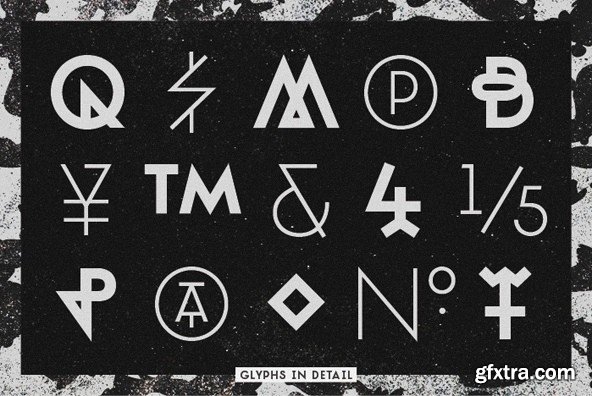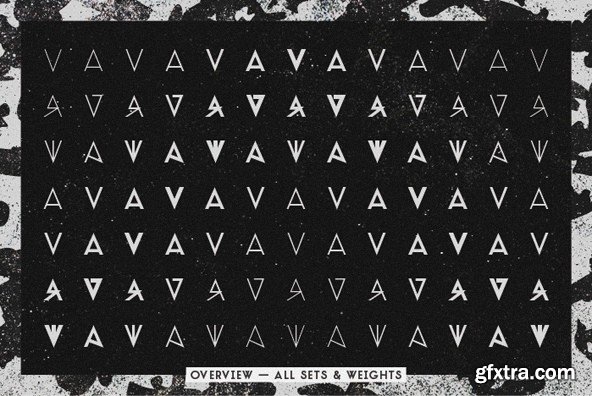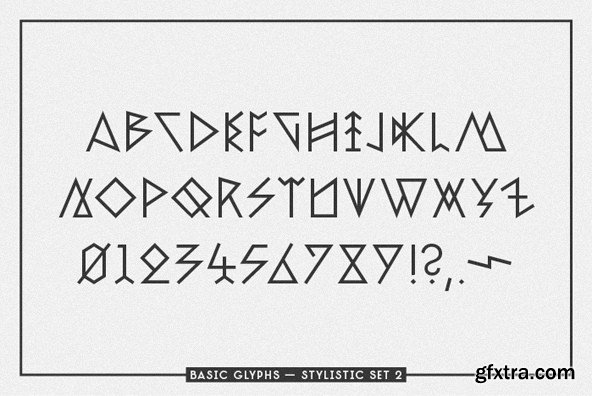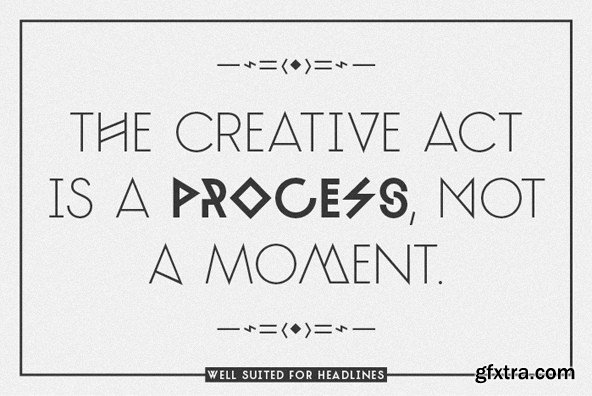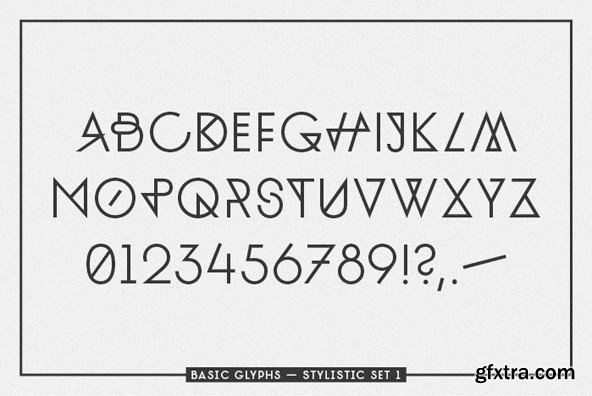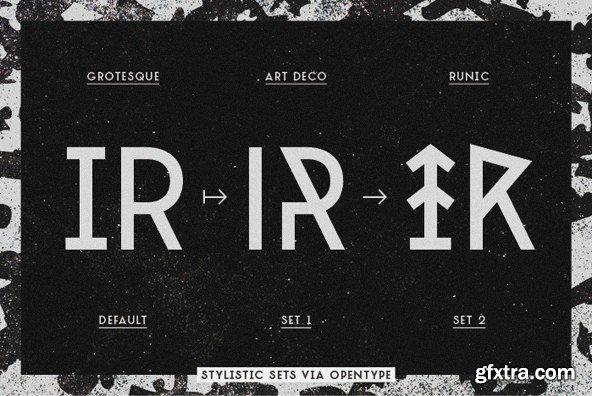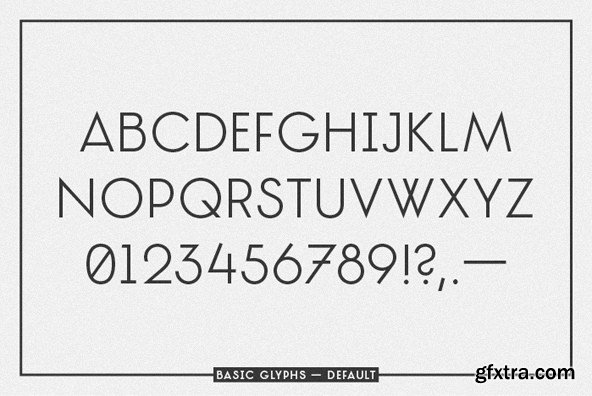
TJ Evolette A Full Family
TJ Evolette A is unique, customizable, experimental, fashionable and clean. The geometric constructed uppercase grotesque display font family of 21 styles, features seven weights, one basic glyph set, two integrated extravagant stylistic sets for the whole alphabet and some astonishing special characters as well. TJ Evolette A was designed in 2011 by Timo Titzmann and Jakob Runge. In 2014 they revisited the typeface with new characters, border language support, runic figures, improved kerning and a better weight gradation with heavier weights. The typeface offers numerous combination possibilities between the basic glyph set and the two stylistic sets. The stylistic sets are alternate alphabets – interpretations of Art Deco mixed with straight lined shapes of ancient runes. This variety encourages unusual and extroverted creation in editorial and poster design. In all weights all common character sets of Central, Eastern and Western Europe are supported. Best use of alternate glyphs via OpenType layout features. To use the multifarious typeface even without support of OpenType Features (like for web usage) we recommend TJ Evolette A Web. This version offers a predefined mix of all glyphs. Feature Summary (*new in 2014): – 7 weights: Hairline, Thin, ExtraLight, Light, Normal, Bold and Black* – 2 Stylistic Sets with alternates for every letter – 1 Stylistic Set to mockup the subsetted TJ Evolette A Web – 1 set of runic alternates for the figures* and punctuation – Ancient roman figures* – Automatic fractions* – Superior and inferior figures* – Arrows* – Contextual alternates for arrows and a correct multiply between figures* – More than 600 glyphs in each weight – Extended language support* (most Latin-based scripts supported)